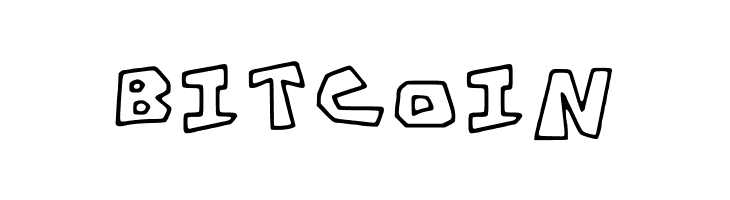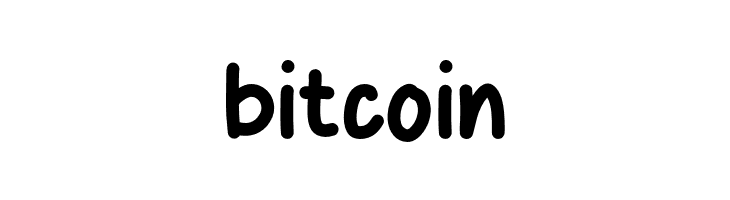
( Fonts by srcium )
A playful, hand-drawn font with bold, irregular outlines.
( Fonts by MJType )
A playful, rounded font with bold, smooth curves and a friendly vibe.
( Fonts by peep peep )
A playful, hand-drawn font with bold, irregular characters and a cartoonish style.